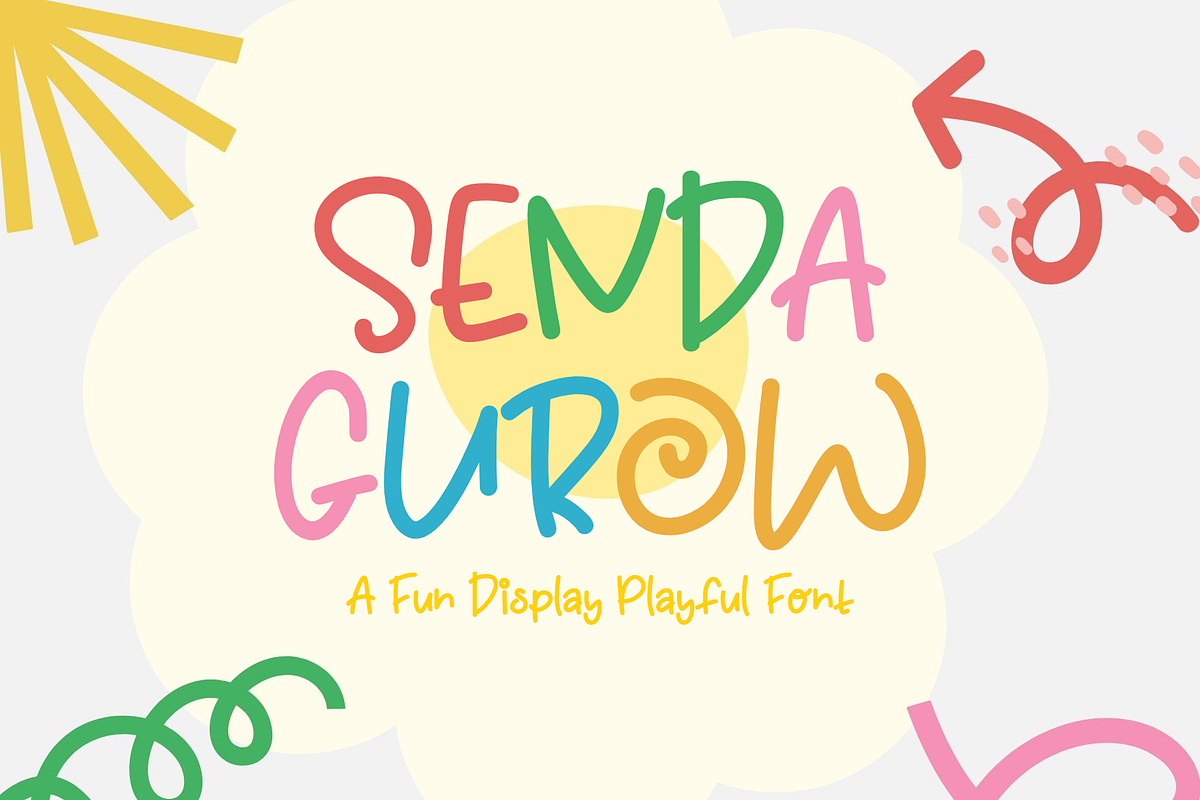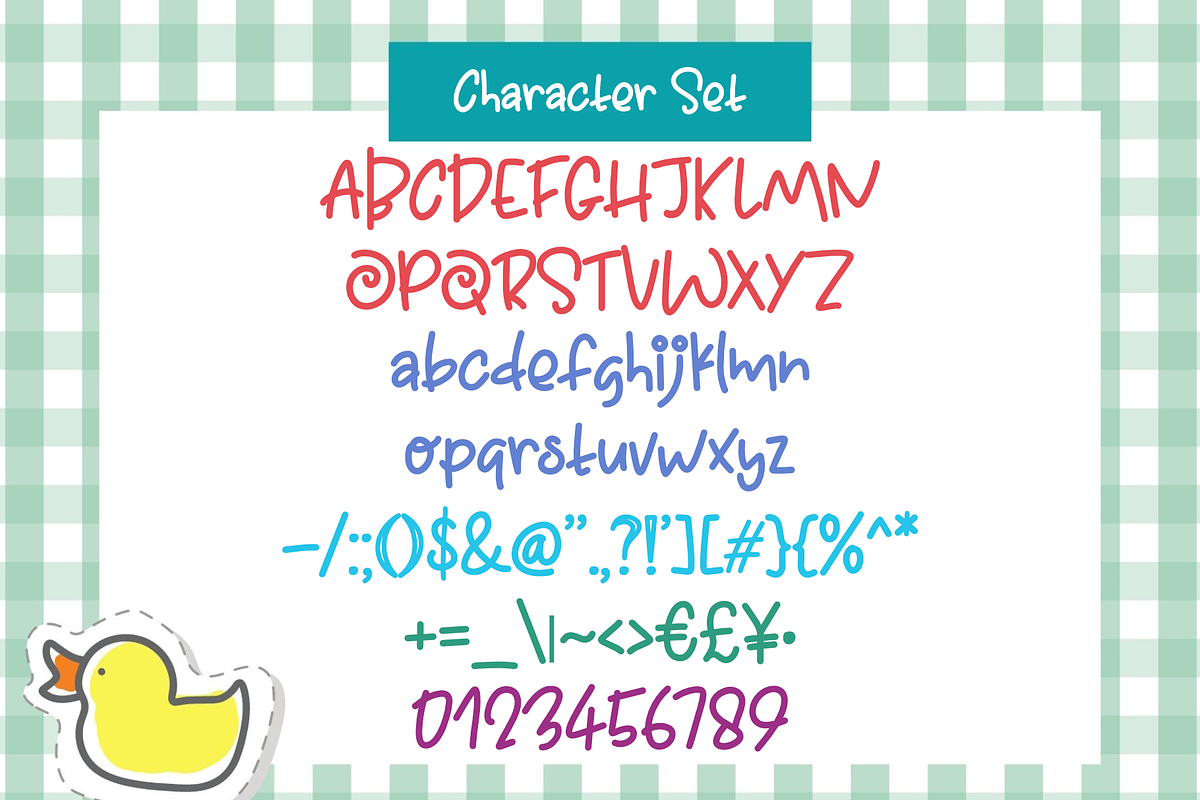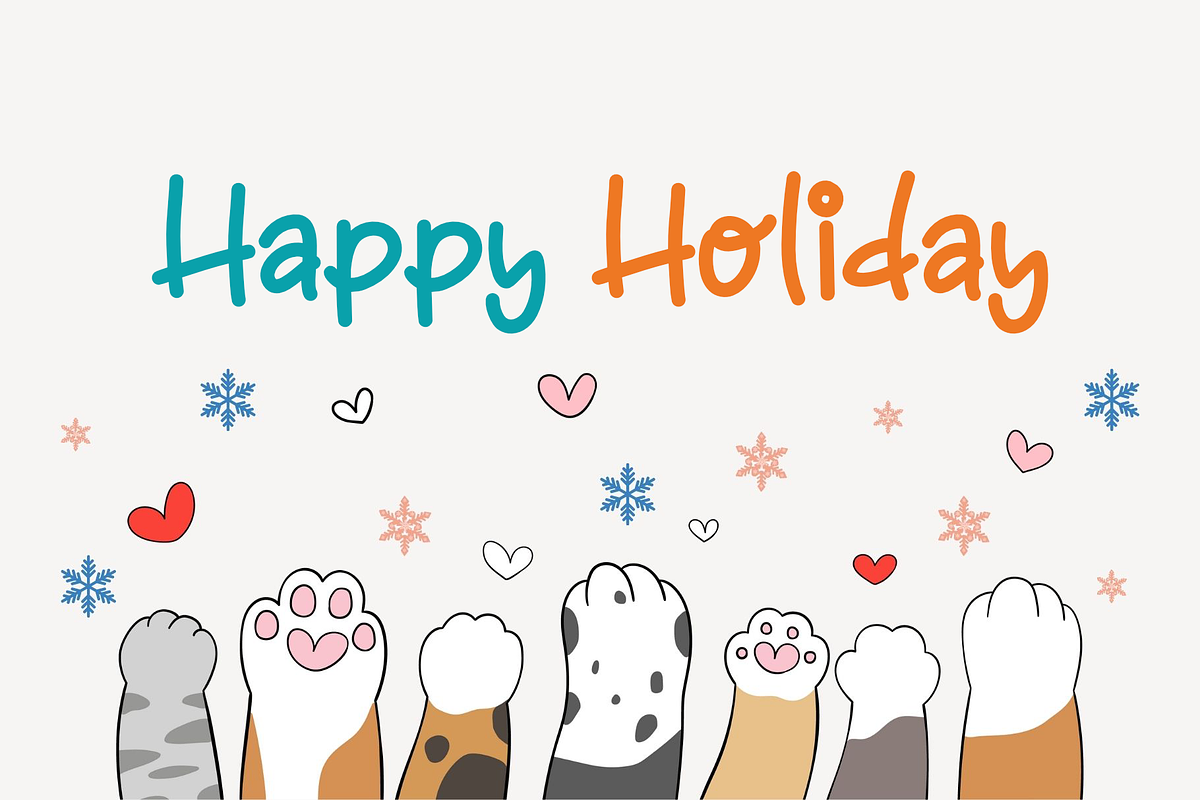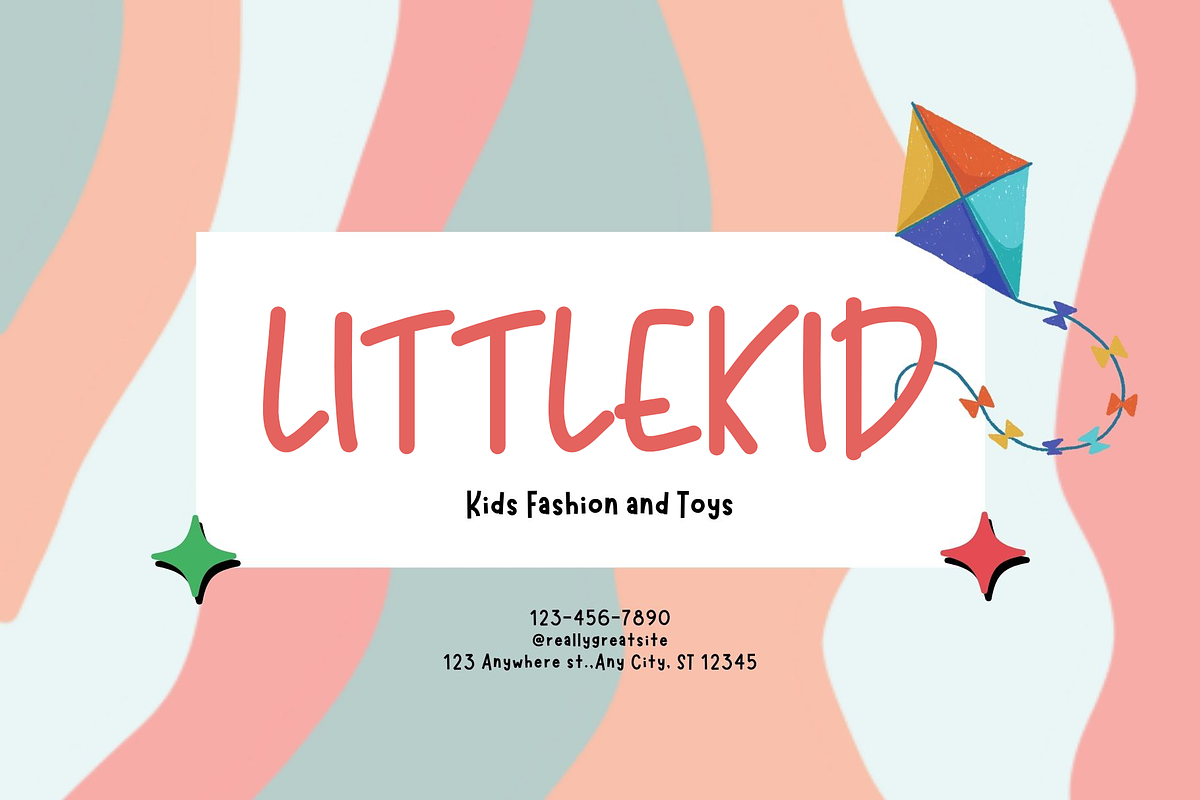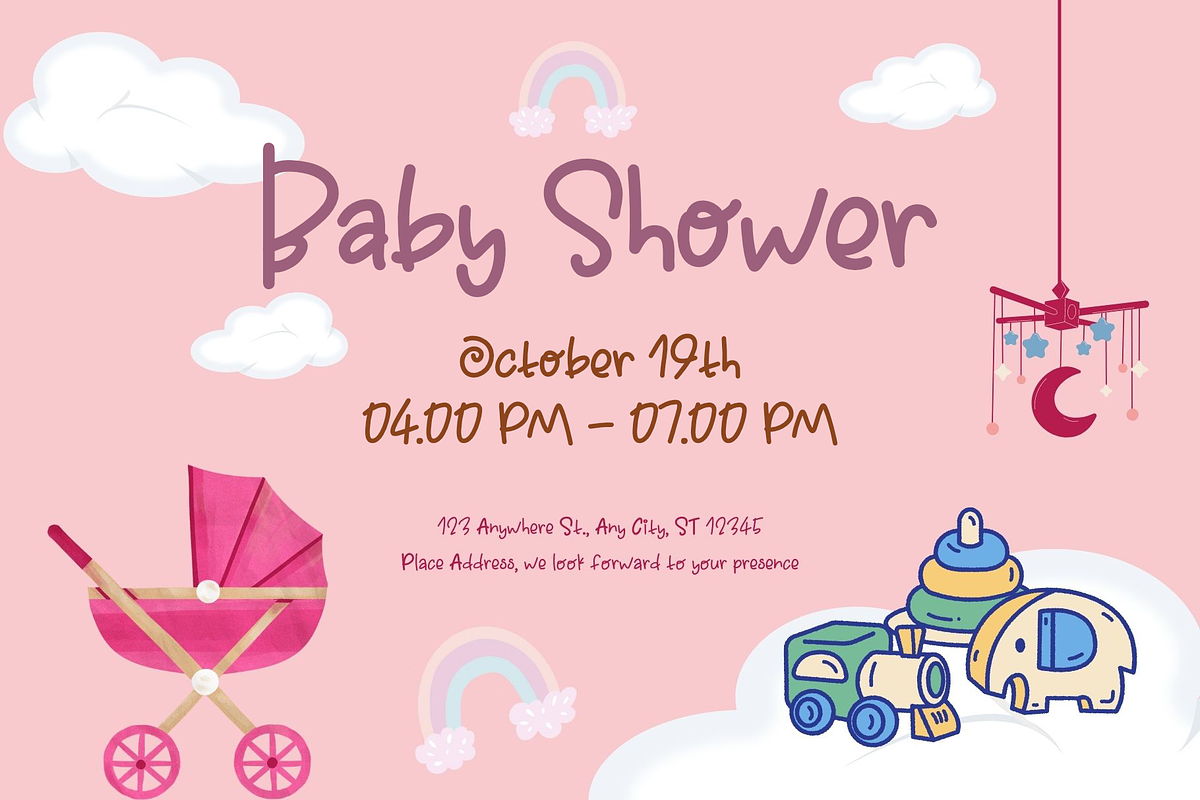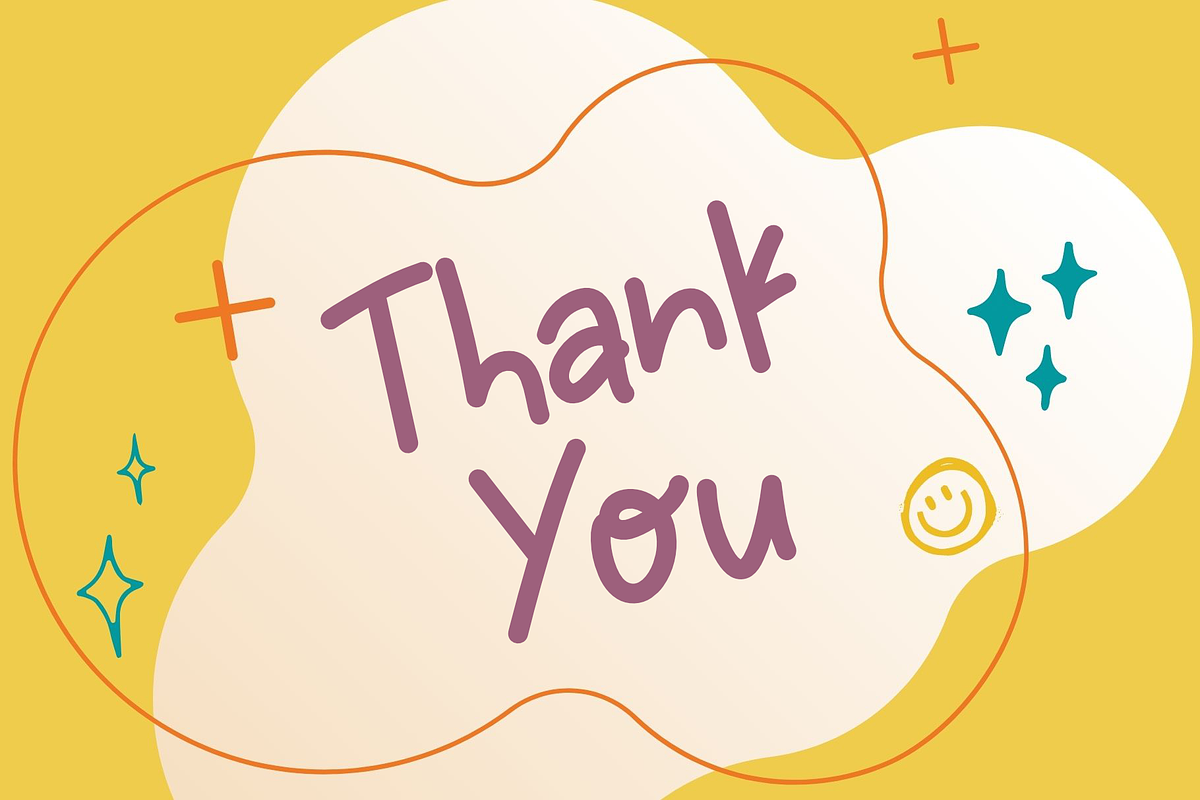
Sendagurow – Fun Playful Display Font
Add warmth, joy, and playful charm to your creative projects with Sendagurow, a fun display font designed especially for children's designs.
Featuring rounded handwritten letterforms with a clean and friendly appearance, Sendagurow is perfect for creating cheerful typography that feels welcoming and easy to read.
Whether you're designing classroom resources, baby shower invitations, nursery decorations, educational worksheets, toy packaging, birthday cards, or playful branding, this font brings happiness to every project.
Its balanced proportions and rounded strokes make it highly legible while maintaining a unique handcrafted personality.
Designed for creators who love fun, colorful, and family-friendly typography.